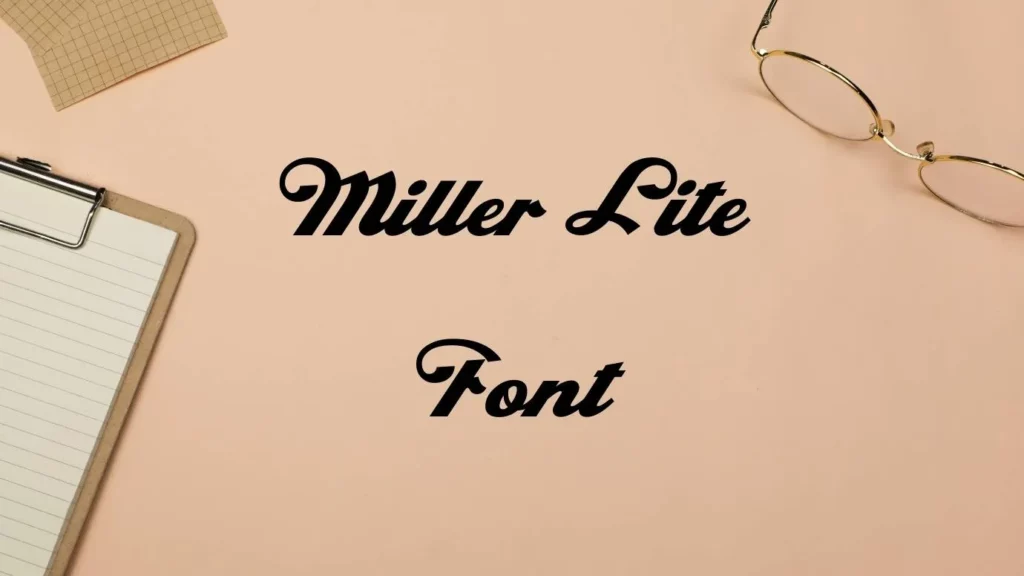
Miller lite font style is utilized for the symbol of Mill operator Lite is exceptionally comparable to Draft Brew. That text style family is outlined by Amanda Leeson in 2005. It’s a well-known typeface that comes in a profoundly neat plan and sharp highlights. Having Genuine Sort diagrams numerous originators are utilizing this text style for their different projects.
This present-day script typeface has as it were one standard fashion that makes several plans. It has 123 one-of-a-kind characters besides lowercase, accentuations, and capitalized letters. This typeface is best for gaming logos and calligraphy plans. It culminated in matching with other script textual styles like Canvas Script Overwhelming Text style and Bonfire Script Font.
This present-day script typeface has as it were one customary fashion that makes several plans. It has 123 unique characters on the side lowercase, accentuations, and capitalized letters. This typeface is best for gaming logos and calligraphy plans.
Due to its striking and italic see, you’ll utilize this typeface for calligraphy and other phenomenal plans. Numerous originators utilize this cozy typeface in their projects for giving a unique look to their plans. You’ll be able to utilize this text style for pennants plans and social media posts.
It is additionally reasonable for progressed script designs and content by matching with other scrip and calligraphy textual styles like Good Vibes Text style.
You’ll utilize this typeface in PowerPoint introductions, Insignias, and postcard plans. It is additionally useful for welcoming cards, welcome cards, commerce cards, and numerous other card designs.
Style Handwritten
Designer Amanda Leeson
What text style does utilize for Mill operator Lite Font?
New Caledonia Text style is utilized for the creation of this typeface due to its comparable plan and look.
What sort of textual style is Mill operator Lite Font?
It could be a script text style that was created by a popular textual style originator named Michael Hagmann. It was discharged from primary within the year 2015.
Can I utilize the Mill operator Lite typeface for my symbol designs?
This typeface is best for all sorts of logo plans and astounding site logos due to its stylish and great dividing characters.
What textual style is comparable to Mill operator Lite Font?
Tomatoes Text style is the finest for utilizing its comparative due to its strong and light italic see that’s idealized for making present-day designs.